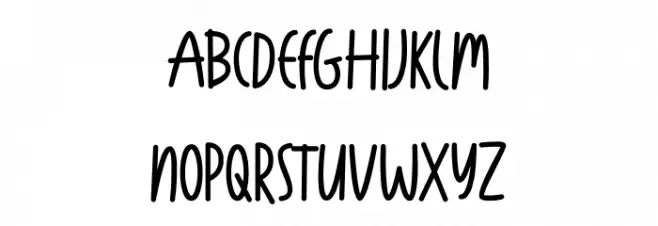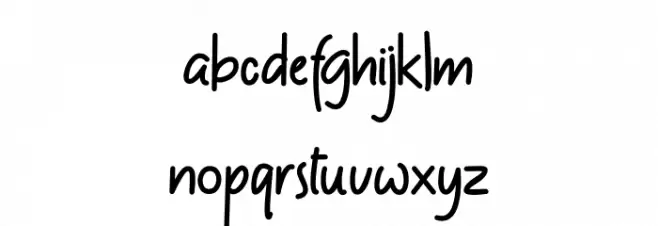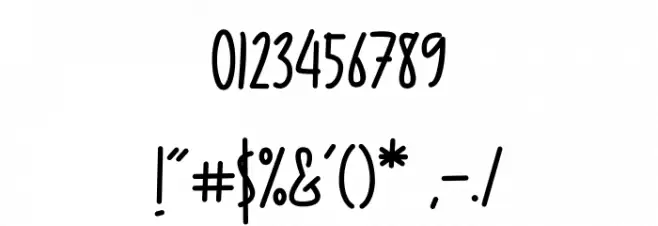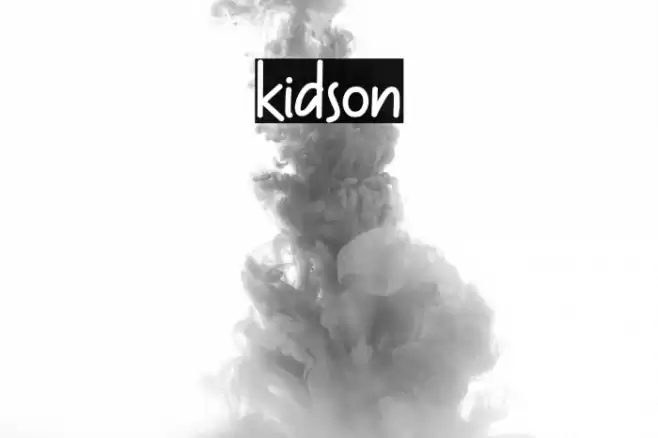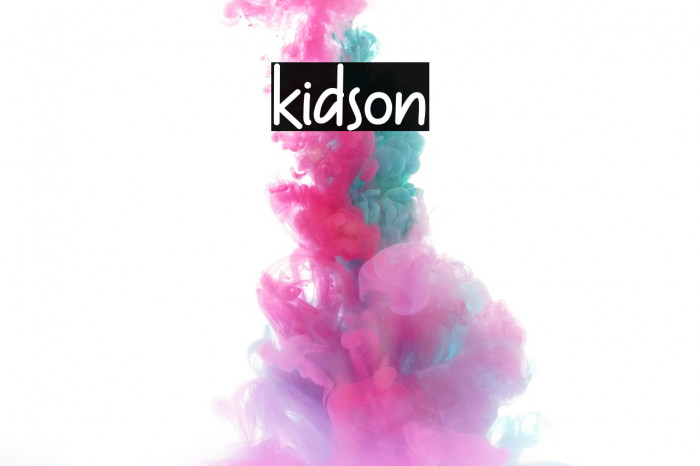
kidson Font
kidson Description
This playful and whimsical font features a handwritten style with a casual, friendly appearance. The letters are slightly irregular, giving it a natural and organic feel. The strokes are smooth and rounded, with a consistent thickness throughout, creating a harmonious and approachable look. The font includes both uppercase and lowercase letters, numbers, and a variety of special characters, making it versatile for different uses. Its informal style is perfect for projects that require a personal touch or a fun, lighthearted vibe.
A playful handwritten font with smooth, rounded strokes and a casual style.
- Proposed Projects: Ideal for children's books, greeting cards, playful branding, and social media graphics.
- Category: Handwritten
- Overall Style: Casual, Playful
- Use Case: Headlines, Informal text, Branding